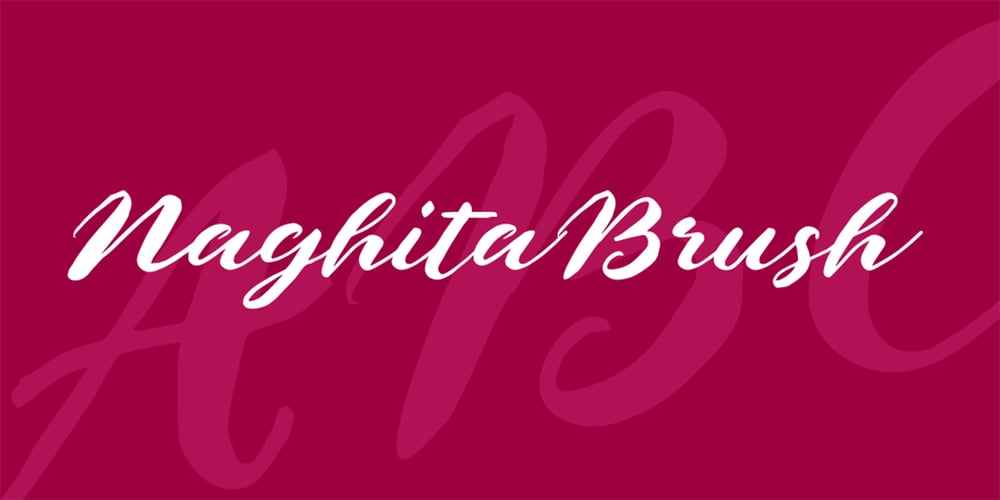
Naghita Brush Font Family was designed by Nasrullah and published by Sulthan Studio. Naghita Brush contains 1 styles and family package options. Nagitha Brush is a handwritten font style and then traces of life to have a brush. This font type is equipped with 445 glyphs and will be the next choice for your needs .